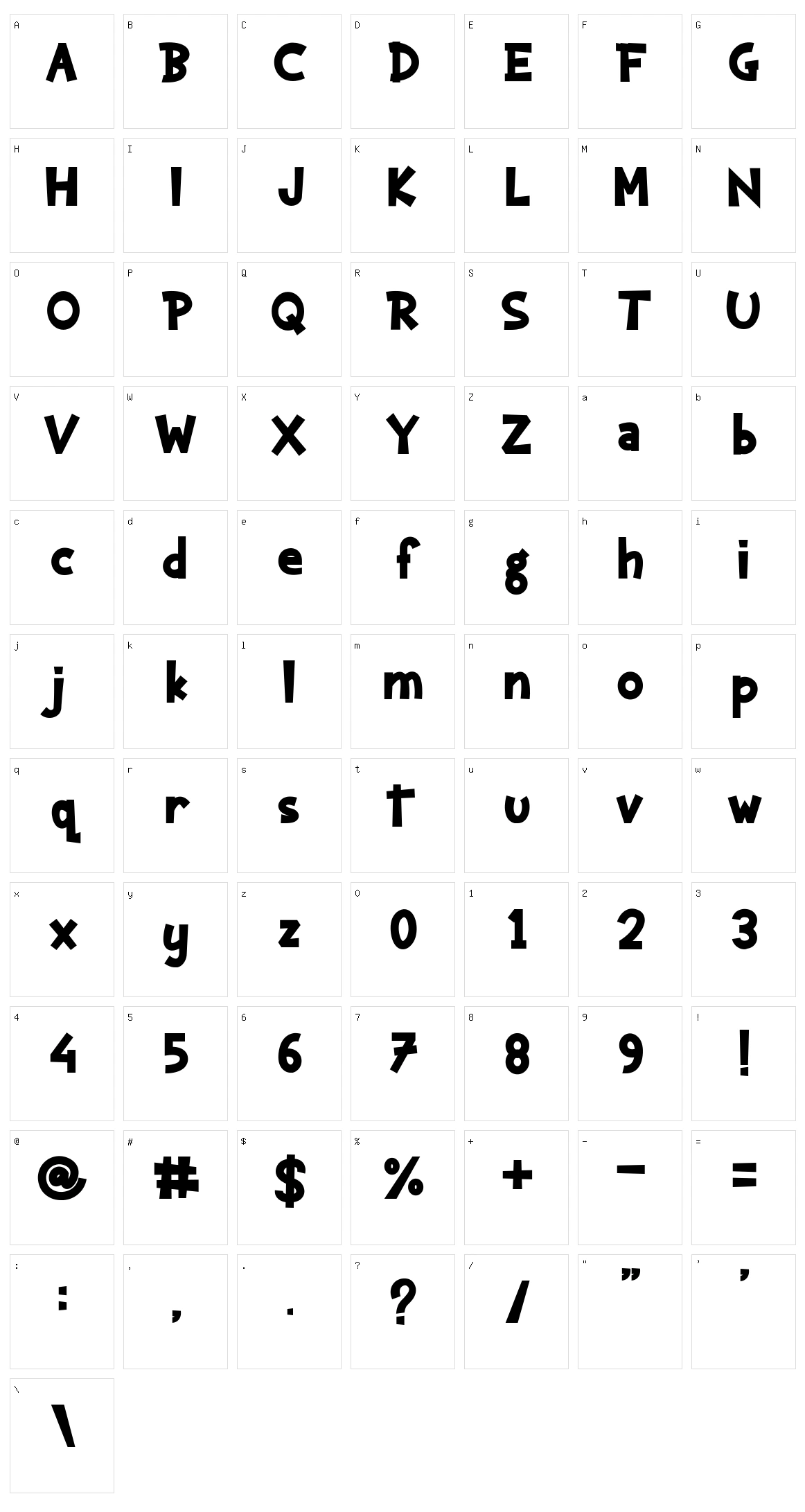
The free font Kaharsa is carefully designed by Rantautype, showcasing a thoughtful balance of creativity and usability and falls under the Cartoon font style. When you download the ZIP file, it contains only 12.72 KB of font files, making it lightweight and quick to download. Please review the license details below to understand permitted usage and distribution rights. If license information is not available, we recommend using this font for personal projects only or contacting the author directly for commercial usage permissions.